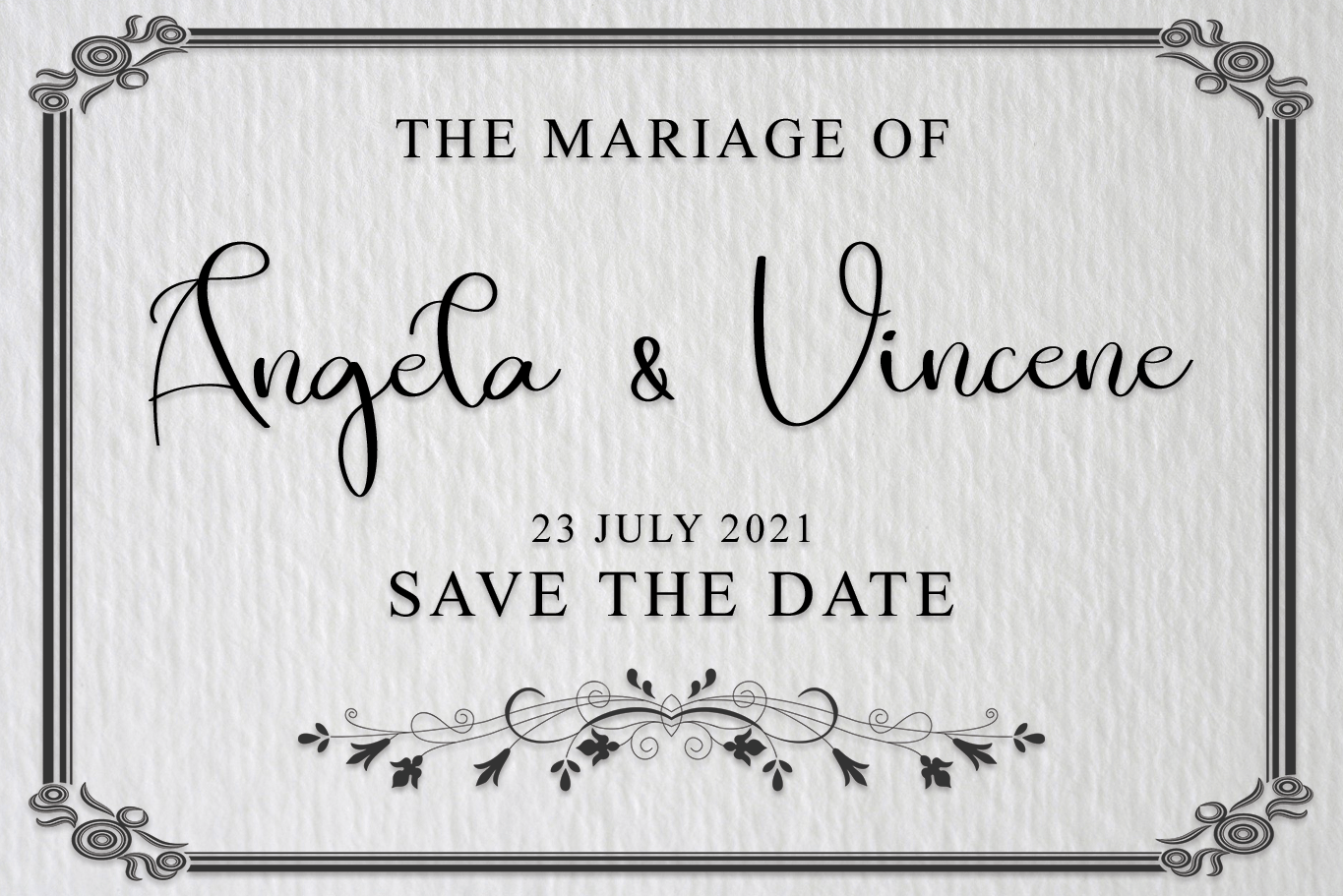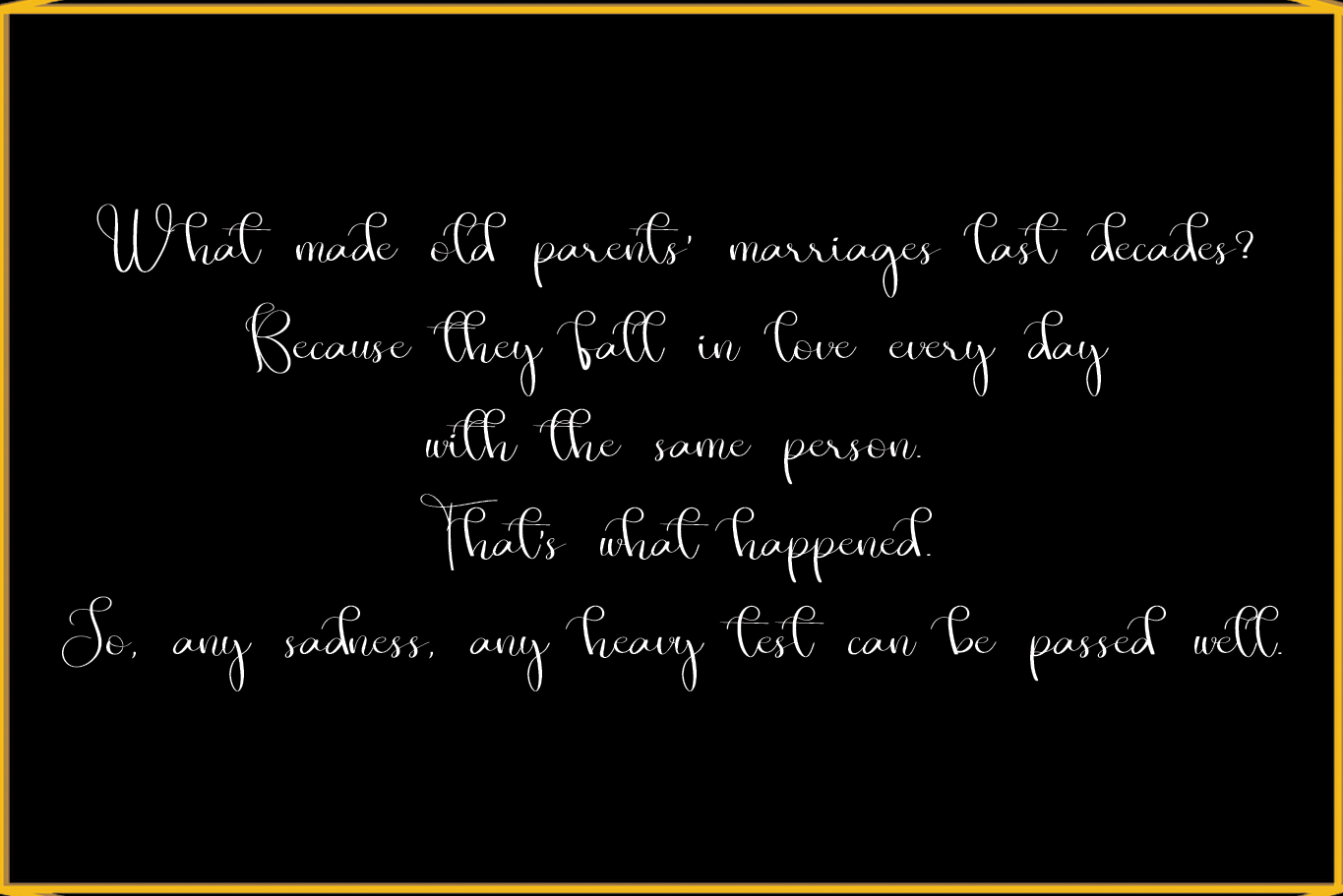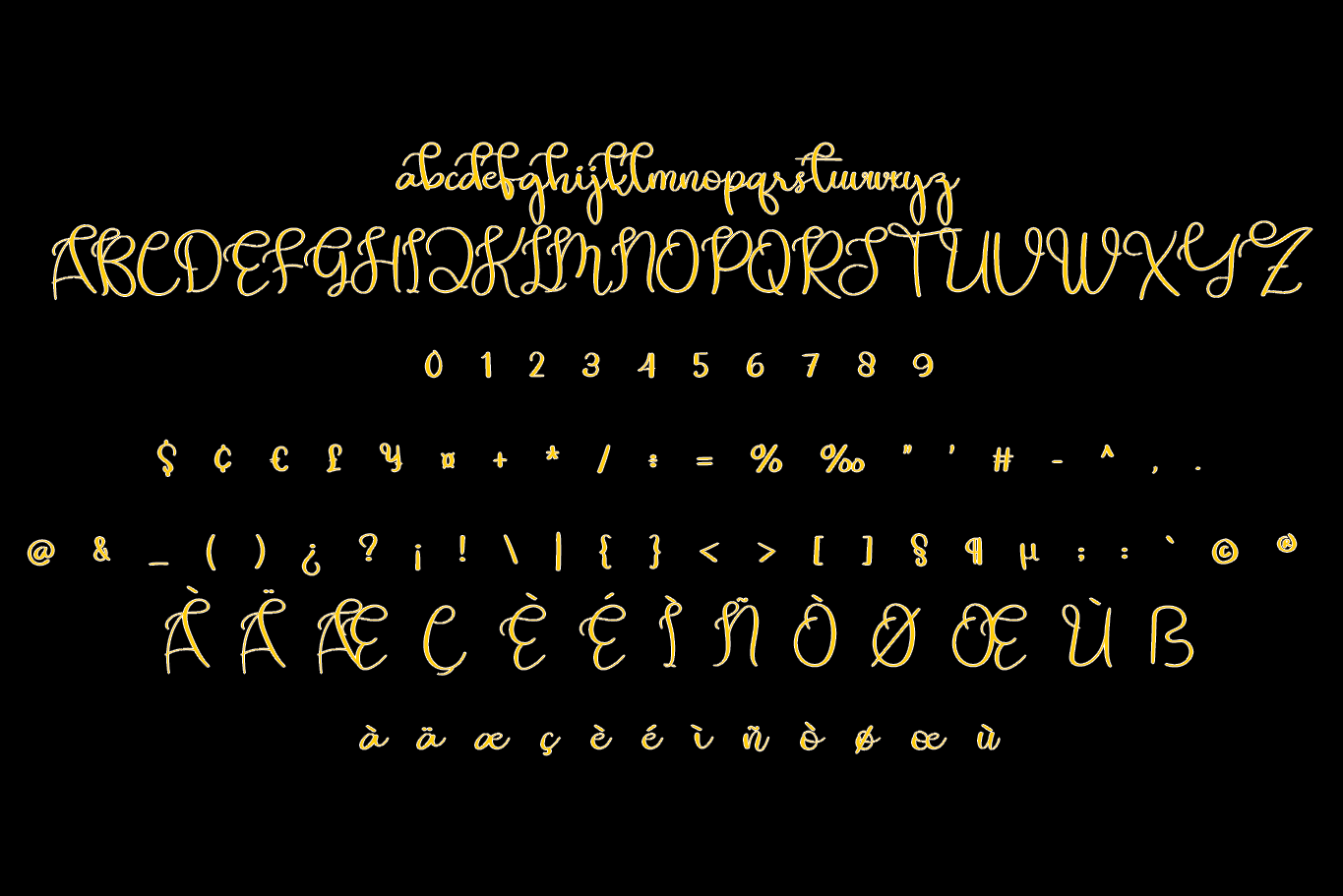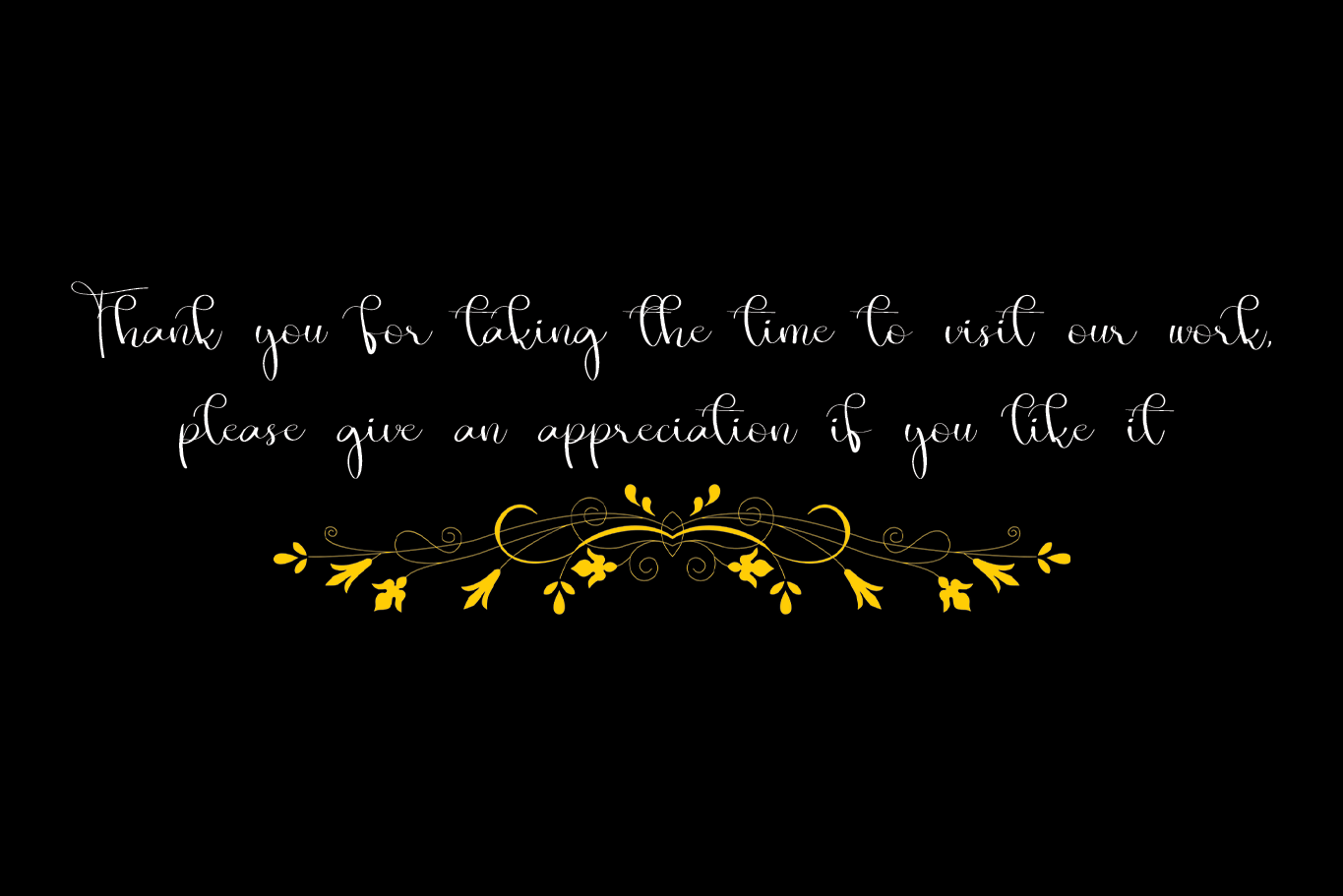
The Shocking Font
The Shocking Script Font
This is a beautiful and refined script font. It has a classy, elegant and modern look that can be used for logos, branding, invitations, stationery, wedding designs, social media posts, and much more!